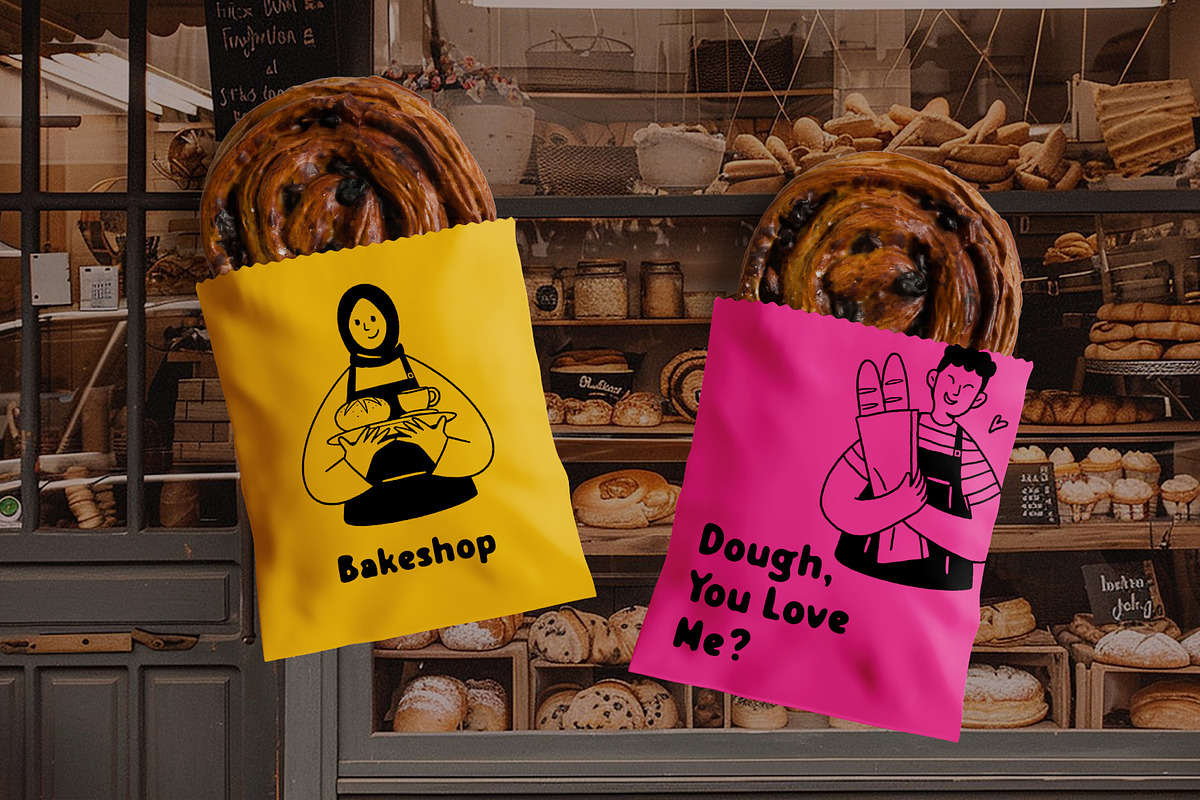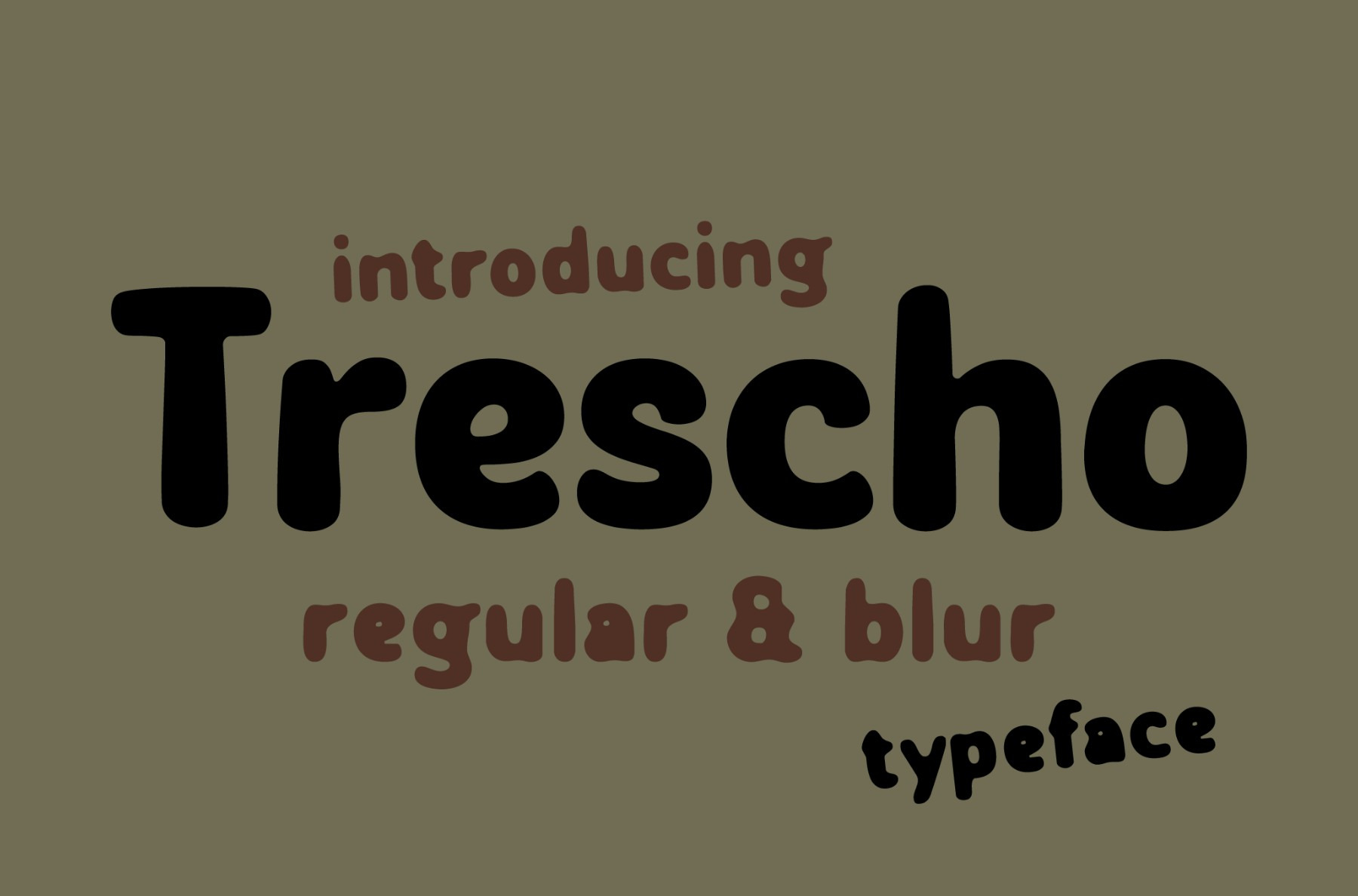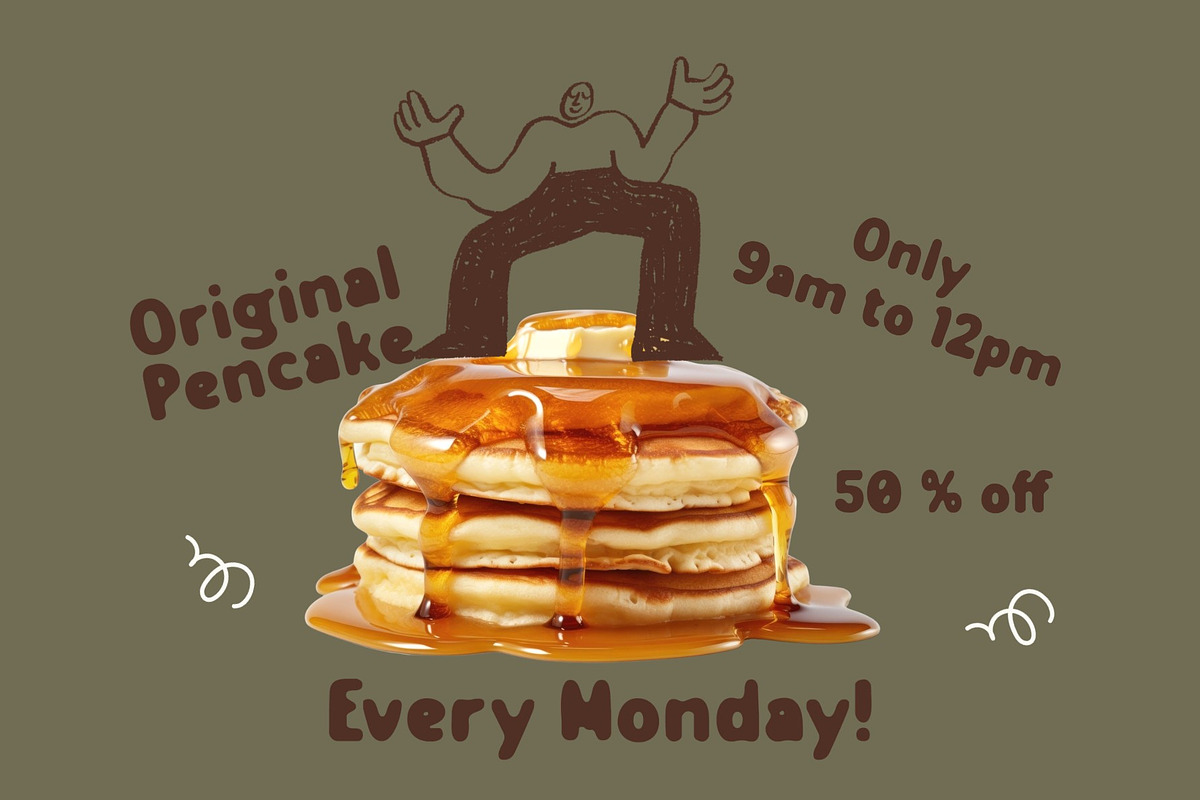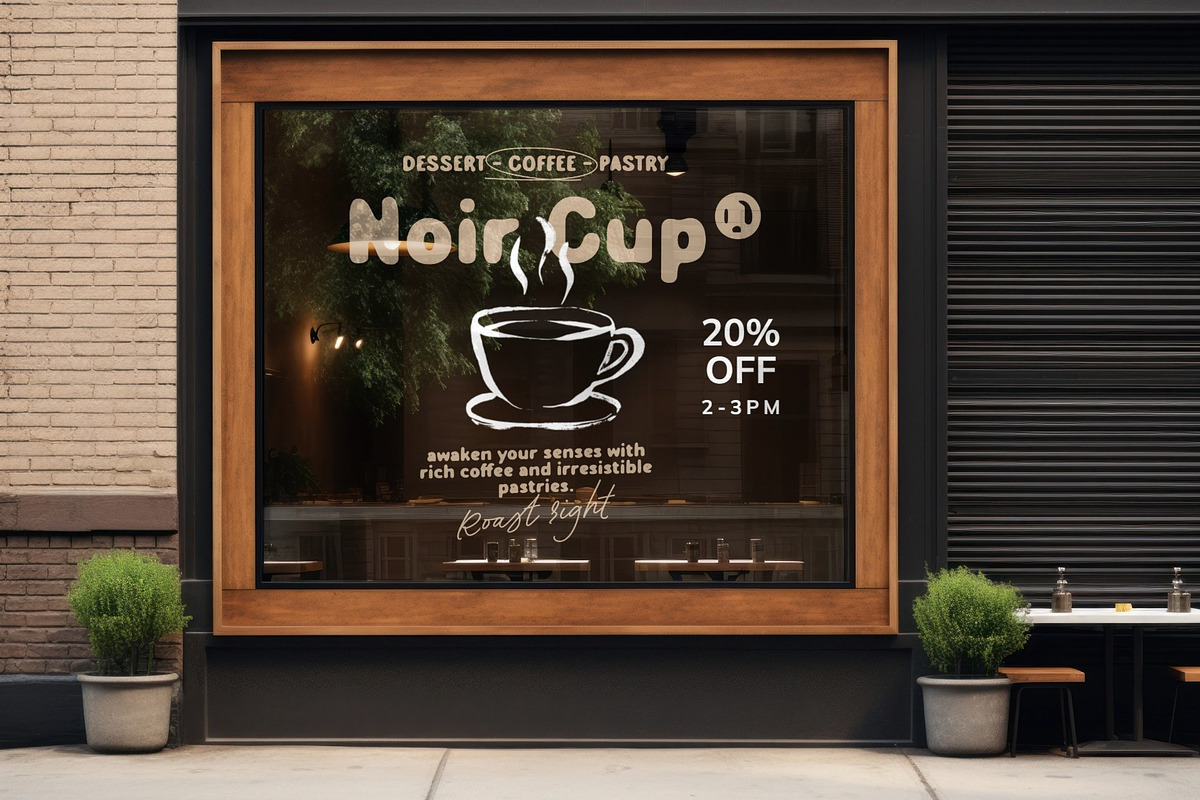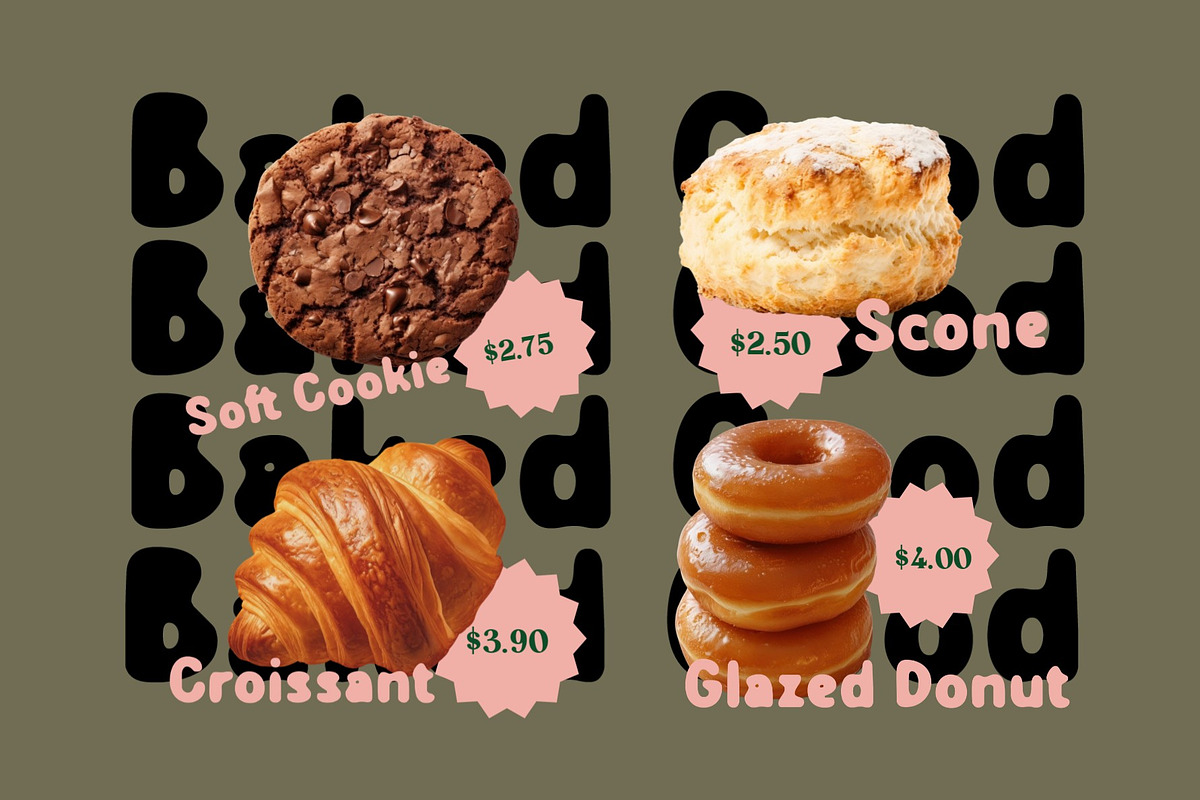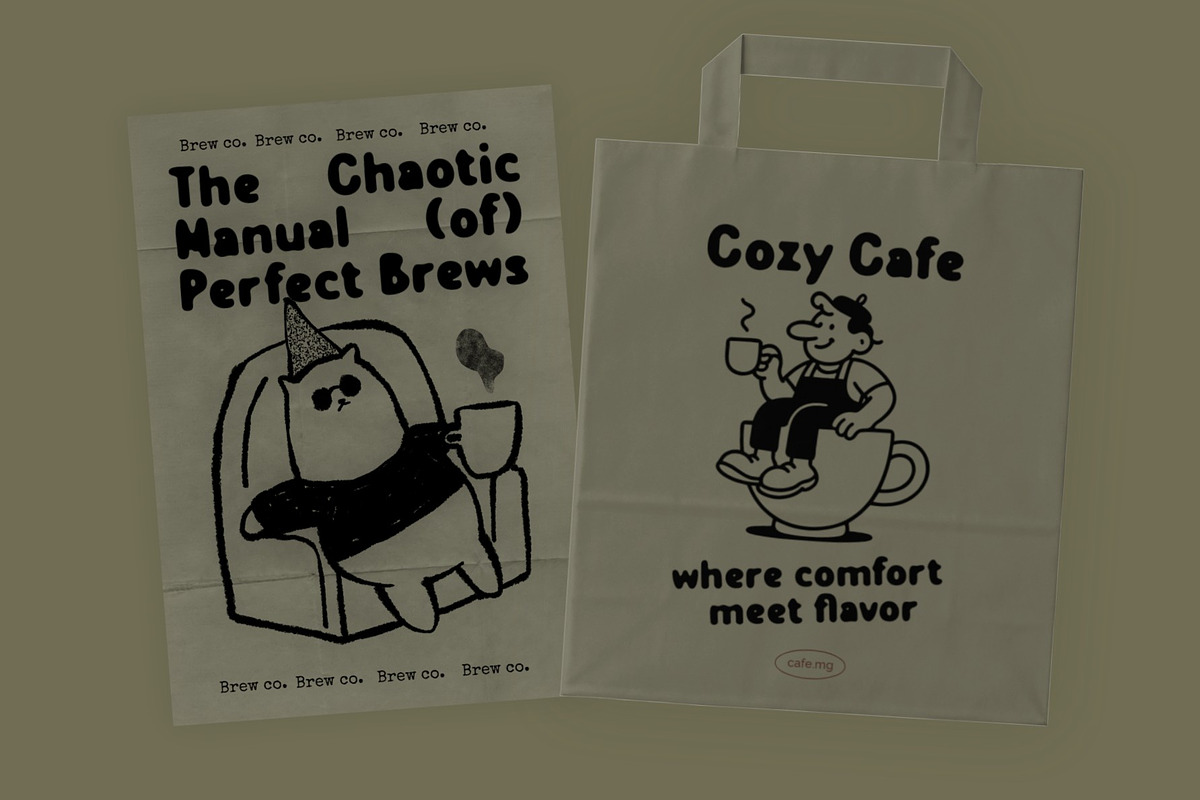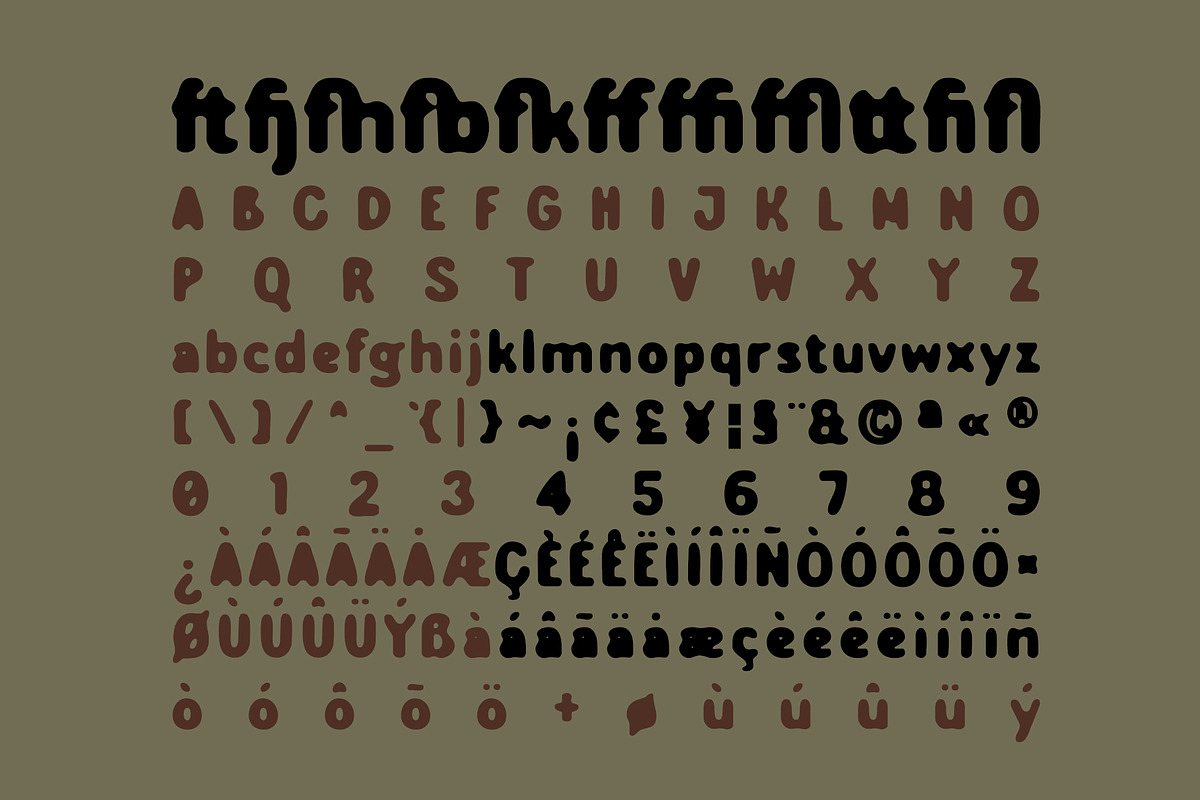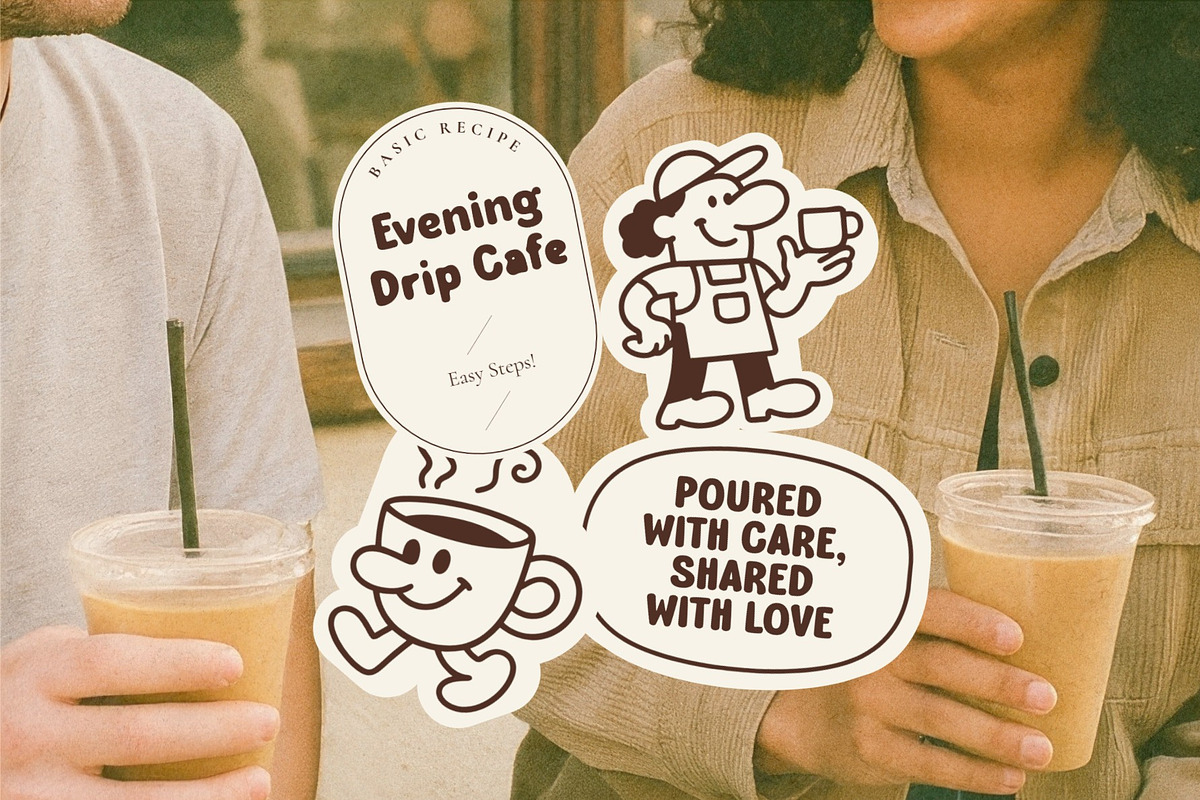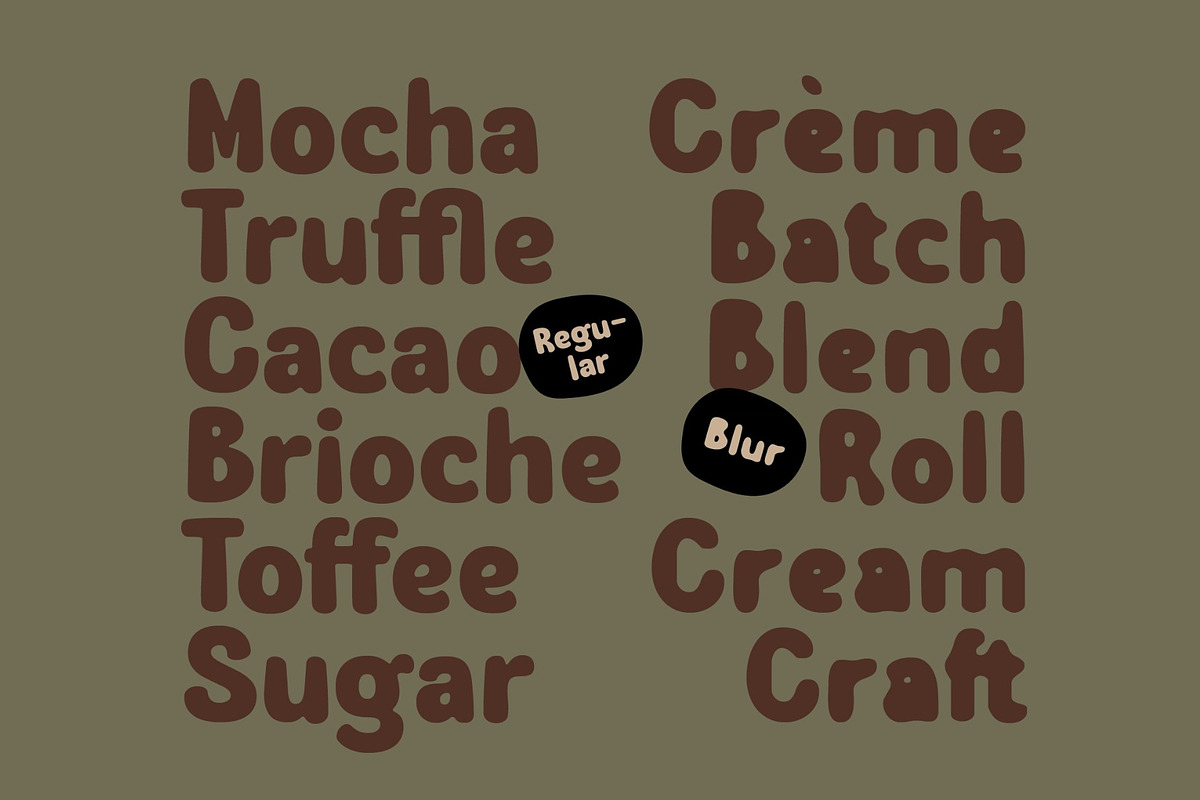
Trescho Typeface
Meet Trescho, a playful rounded display typeface designed to bring warmth, character, and creativity to any project. With its soft, bubbly edges and friendly personality, Trescho is perfect for children-themed projects, branding, posters, packaging, social media graphics, and anything that needs a fun, handmade vibe.
Trescho comes in two expressive styles — Regular & Blur. The Regular version gives you a clean, smooth look, while the Blur version adds a soft, dreamy, and atmospheric feel that enhances playful or abstract designs.
Whether you're a designer, brand owner, or creator looking for something unique, Trescho adds charm to every letter.
- Trescho Regular
- Trescho Blur
Add a cute, creative touch to your designs with Trescho – the rounded display font that stands out effortlessly.